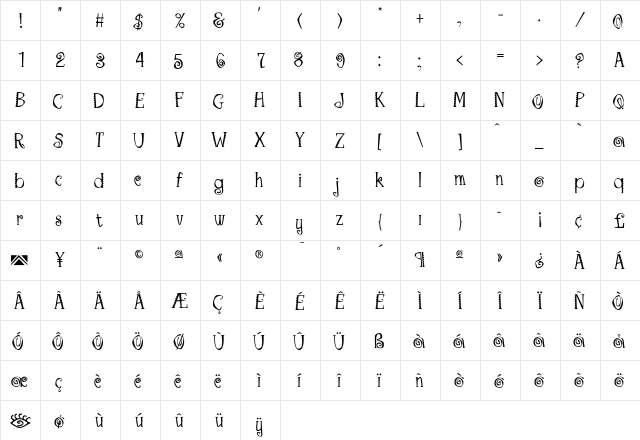
Mambo Light
Design Context for Mambo Typeface
Mambo is a composed and adaptable typeface that performs quietly and consistently across a wide range of design contexts. The delicate stroke weight brings airiness and refinement to layouts.